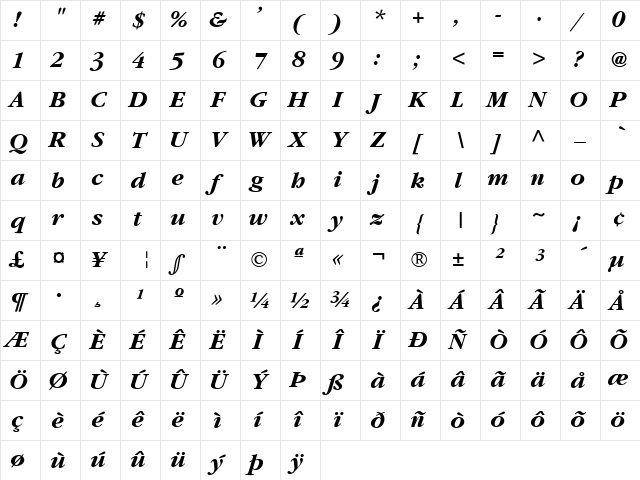
Gatineau Bold Italic
Gatineau Family
Gatineau Bold Italic
Design Context for Gatineau
Gatineau is a composed and adaptable typeface that performs quietly and consistently across a wide range of design contexts. The slanted form adds forward momentum and visual energy. Its bold stroke weight gives it real presence on the page.
Pro Tip: Use Gatineau for emphasis, pull quotes, and subheadings where its slanted energy can add rhythm to the layout.